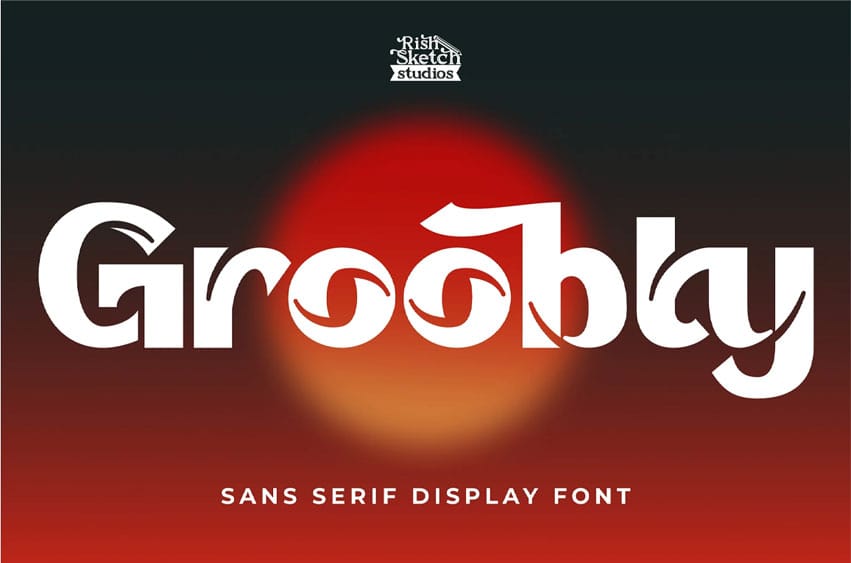
Groobty Font Sans Serif Display Font, from Rishsketch Studios, is a Sans Serif Display Font, perfect for any project that requires a distinctive, and premium feel.
Ligature, Alternate & Multilingual